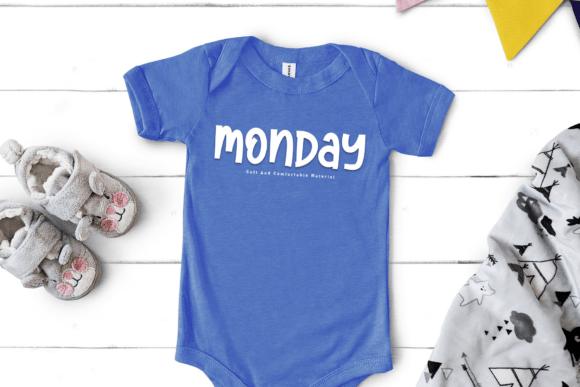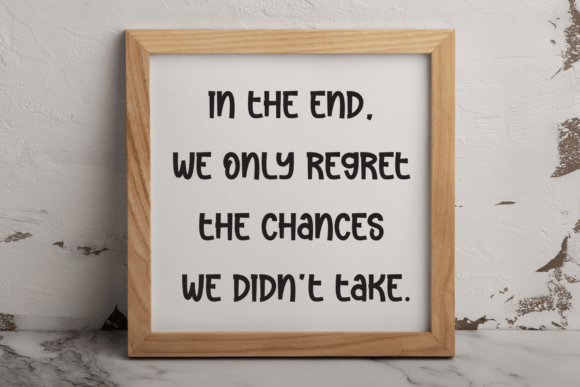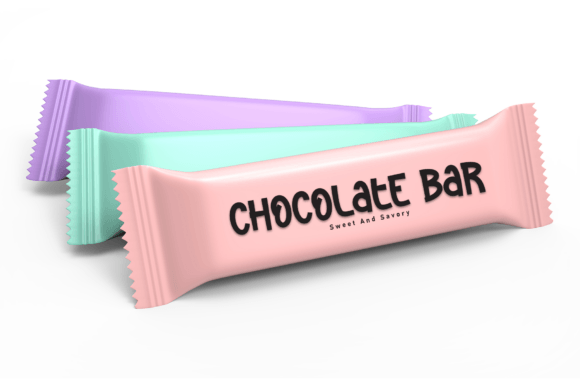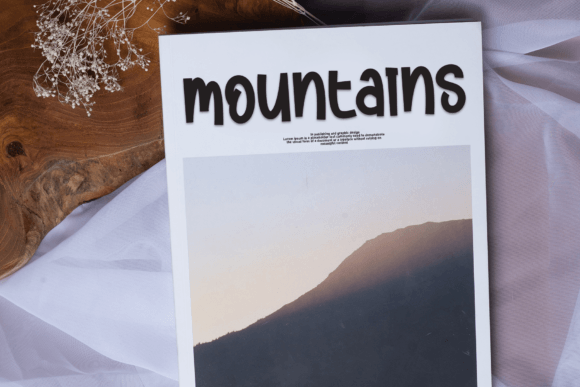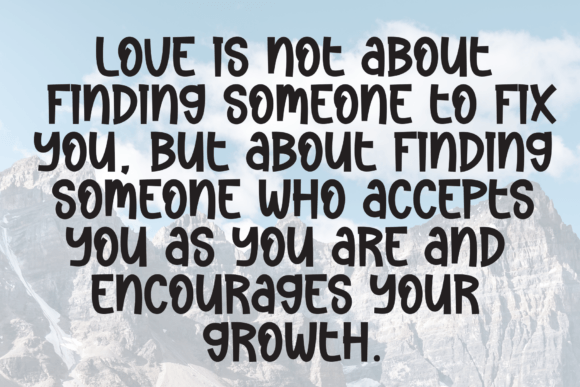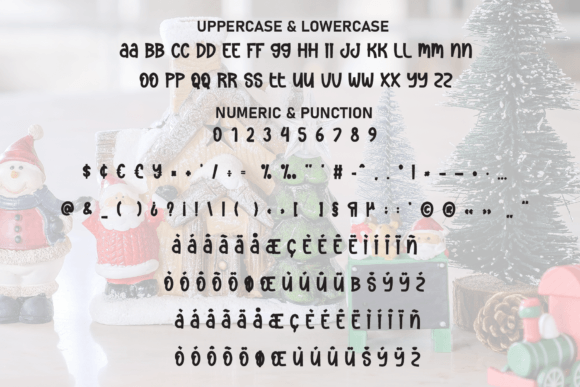
Introducing Christmas Miniature Font: Add a Festive Touch to Your Holiday Designs
Are you looking for a font that can add a playful and charming touch to your holiday designs? Look no further than the Christmas Miniature Font! This bold, handwritten display font is perfect for creating festive and cheerful designs that are sure to spread joy and warmth during the Christmas season.
What is Christmas Miniature Font?
Christmas Miniature Font is a unique and eye-catching font that is specifically designed to capture the spirit of Christmas. Its bold and playful letters are handwritten with a festive touch, making it perfect for holiday cards, decorations, and other Christmas-themed designs.
Key Features of Christmas Miniature Font
• Bold and Playful Letters: The Christmas Miniature Font features bold and playful letters that are sure to grab attention.
• Handwritten with a Festive Touch: Each letter is carefully handwritten with a festive touch, making it perfect for holiday designs.
• Simple and Fun: The font is simple and fun to use, making it perfect for designers and crafters of all levels.
• Perfect for Holiday Cards and Decorations: The Christmas Miniature Font is perfect for creating festive holiday cards, decorations, and other Christmas-themed designs.
Why Use Christmas Miniature Font?
There are many reasons why you should use the Christmas Miniature Font for your holiday designs. Here are just a few:
• Adds Warmth and Joy: The Christmas Miniature Font adds warmth and joy to any Christmas project, making it perfect for holiday cards, decorations, and other festive designs.
• Perfect for Designers and Crafters: The font is perfect for designers and crafters who want to create unique and festive holiday designs.
• Versatile: The font can be used for a wide range of holiday designs, from holiday cards and decorations to festive posters and flyers.
Tips and Tricks for Using Christmas Miniature Font
Here are some tips and tricks for using the Christmas Miniature Font:
• Use it with Other Festive Fonts: Use the Christmas Miniature Font with other festive fonts to create a unique and eye-catching design.
• Experiment with Different Colors: Experiment with different colors to find the perfect combination for your holiday design.
• Add Graphics and Images: Add graphics and images to your design to make it more festive and fun.
The Christmas Miniature Font is a unique and festive font that is perfect for holiday designs. Its bold and playful letters, handwritten with a festive touch, make it perfect for adding warmth and joy to any Christmas project. Whether you’re a designer or crafter, this font is sure to become a favorite in your holiday design arsenal.